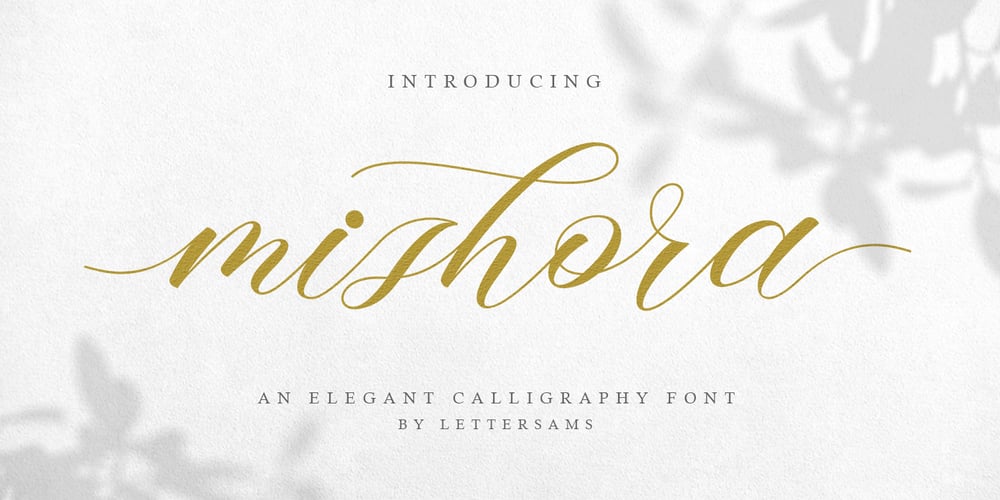
Mishora Script
Mishora Script font
Mishora Script Font Family was designed by Samsul Kamal and published by Lettersams. Mishora Script contains 1 styles and family package options. Mishora Script is an elegant calligraphy font. This font is perfect for wedding invitations, logo branding, titles, signs, labels, signatures, book covers, posters, quotes, and more. Mishora Script displays an alternative, binding, and OpenType International style for most Western languages. To activate the OpenType Stylistic alternative, you support programs that support OpenType features such as Adobe Illustrator CS, Adobe Indesign & CorelDraw X6-X7, Microsoft Word 2010 or newer. Mishora script is coded with Unicode PUA, which allows access to all features without special design software. Mac users can use Letter Books, and Windows users can use Character Maps to view and copy additional characters to attach to your favorite text / editor application. If you need help or have questions, let me know or send an email “suratams@gmail.com” I am happy to help 🙂 Thank you & Happy Designing!